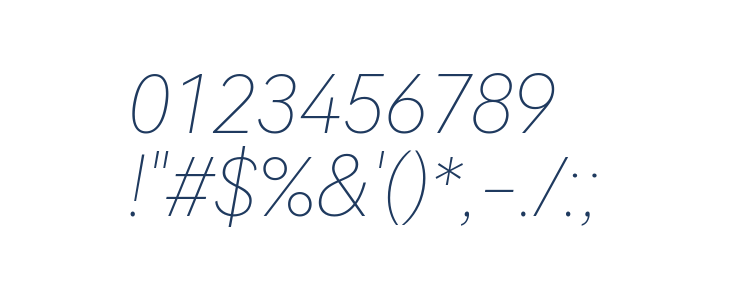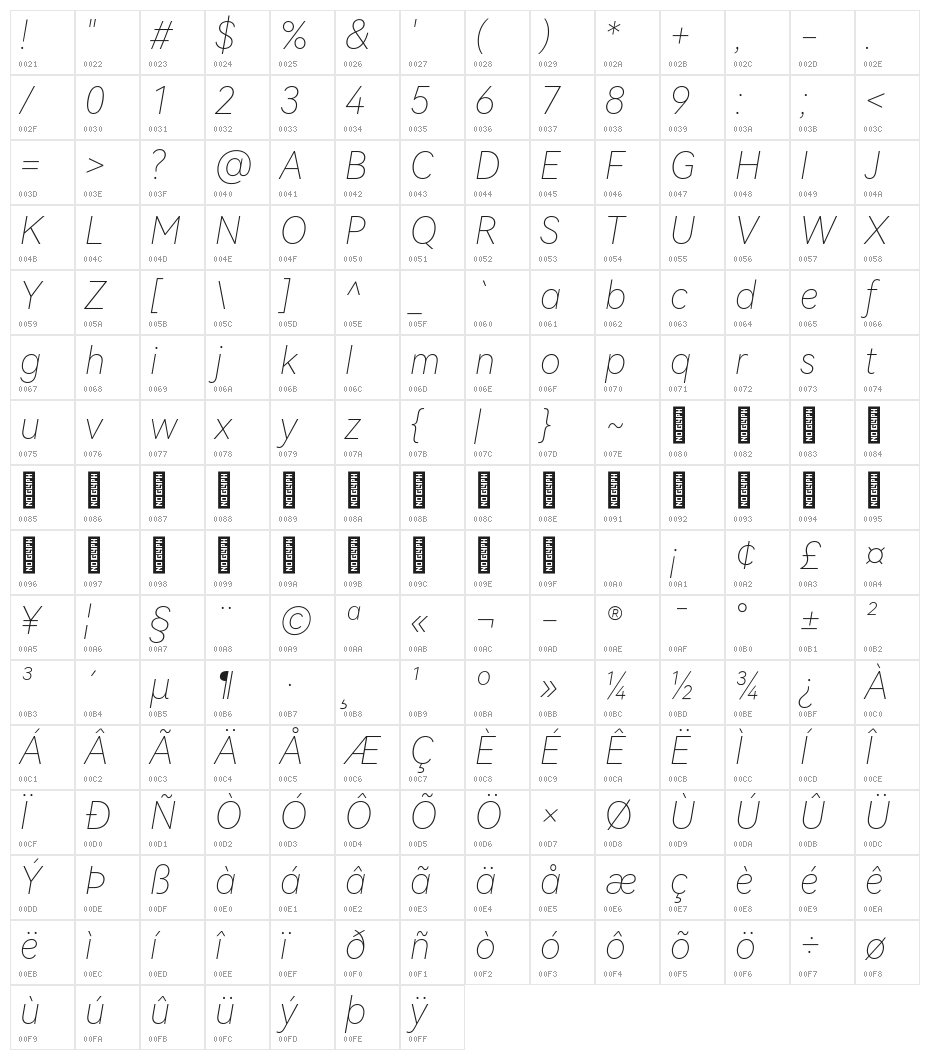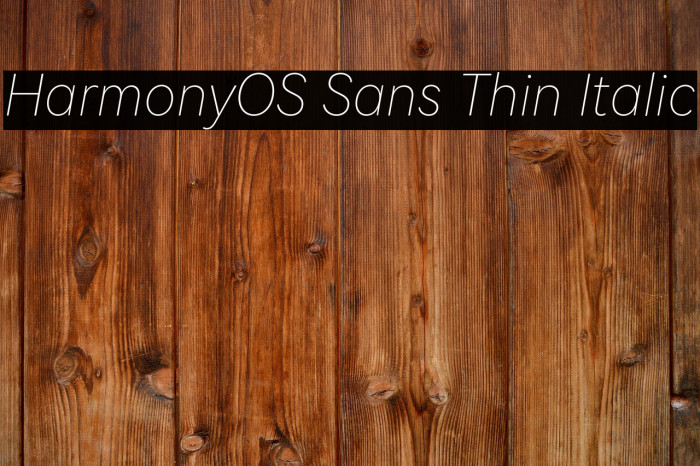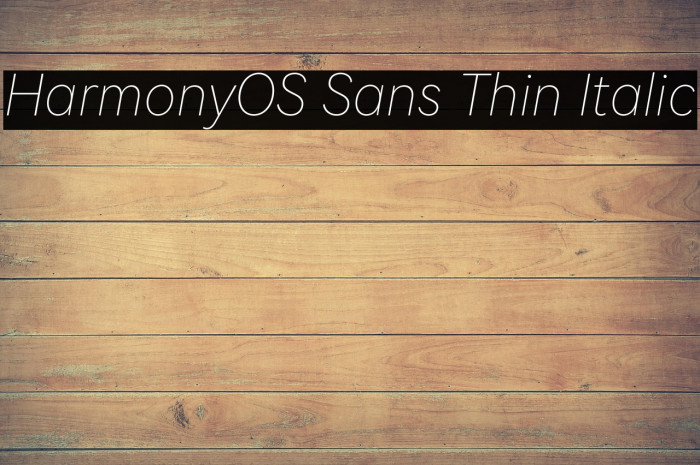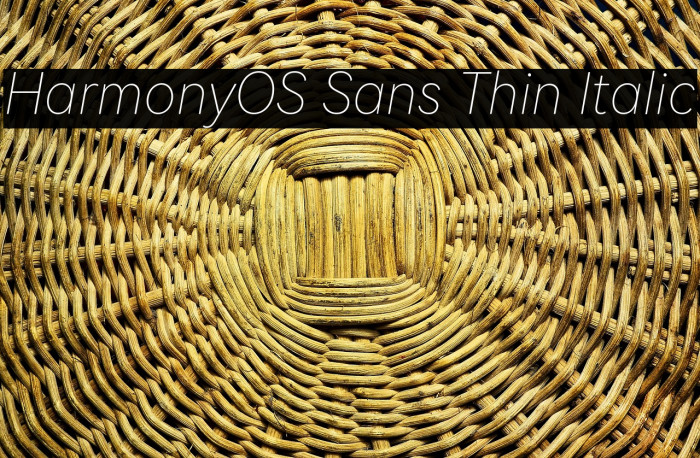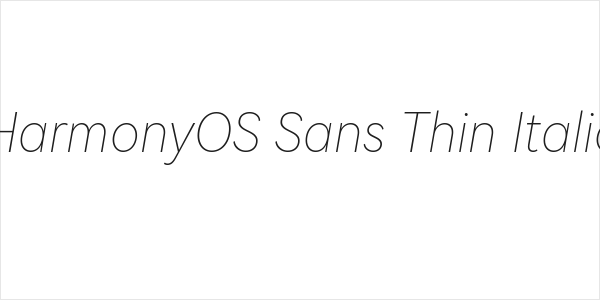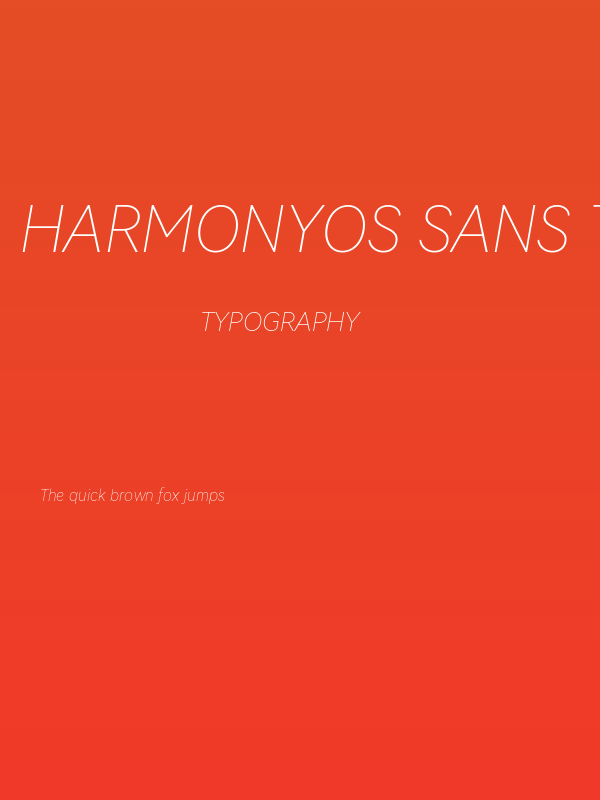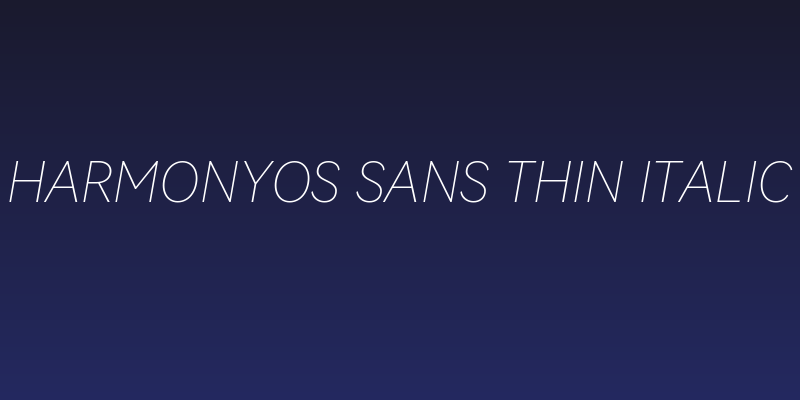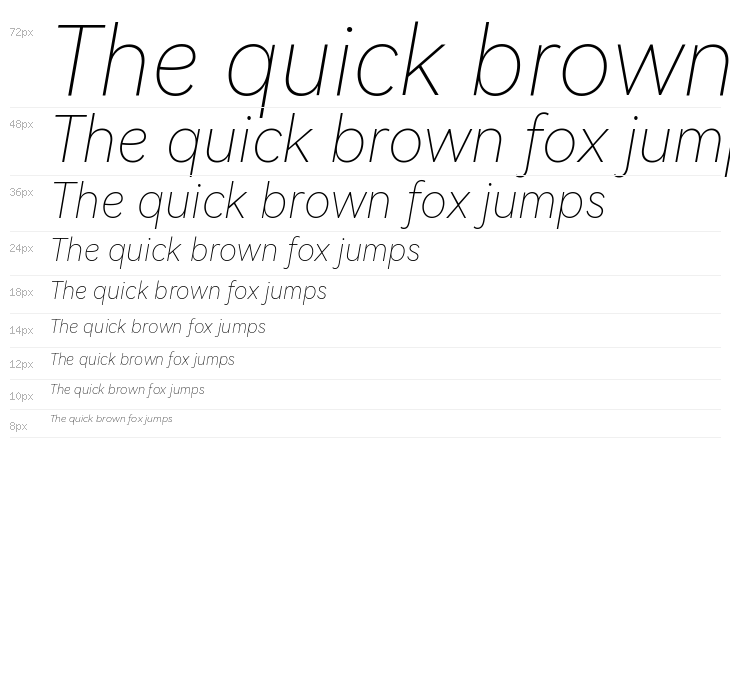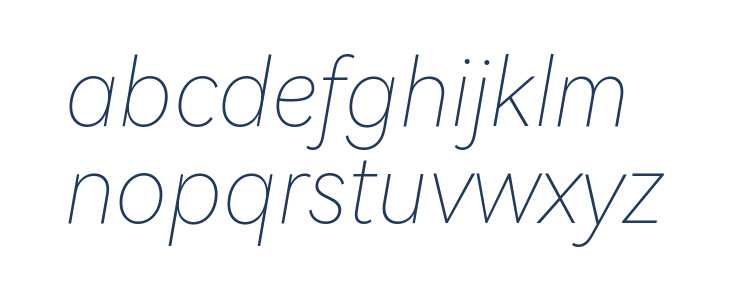
HarmonyOS Sans Thin Italic Font
HarmonyOS Sans Thin Italic Description
This font exhibits a sleek and modern design with a thin, elegant structure. The italic style adds a dynamic and sophisticated touch, making it suitable for contemporary design projects. The characters are evenly spaced, providing a clean and airy appearance. Its minimalist aesthetic is enhanced by the smooth curves and straight lines, offering a sense of clarity and precision. The font's thin weight contributes to its delicate and refined look, making it ideal for applications where subtlety and elegance are desired.
| Proposed Projects | Ideal for fashion magazines, luxury branding, minimalist websites, and modern advertising campaigns. |